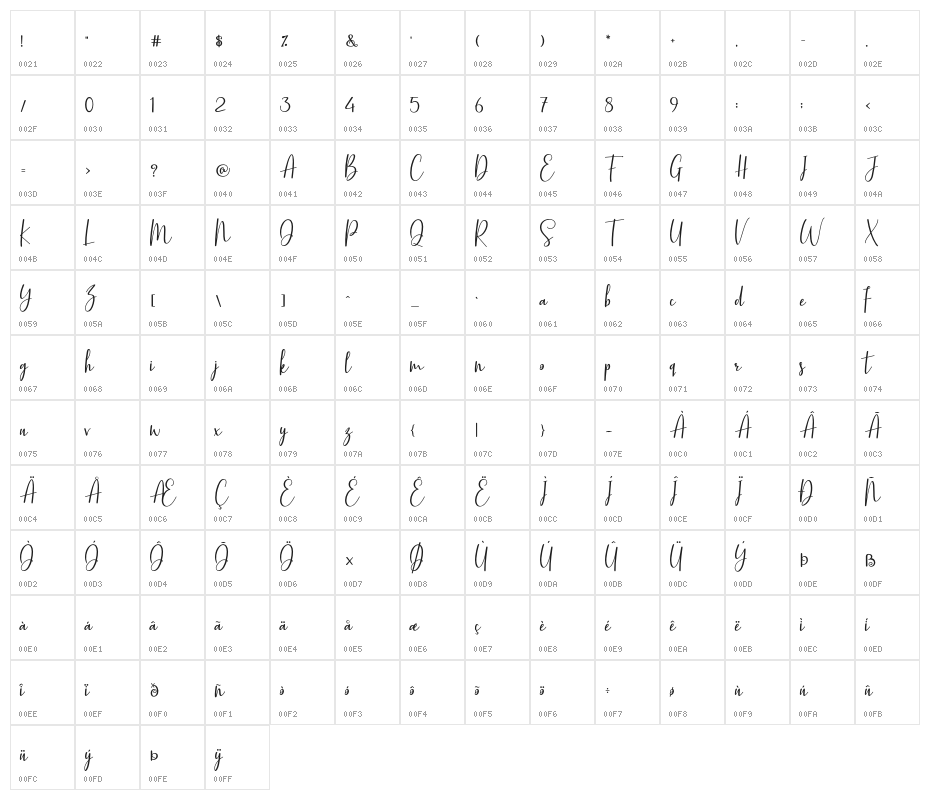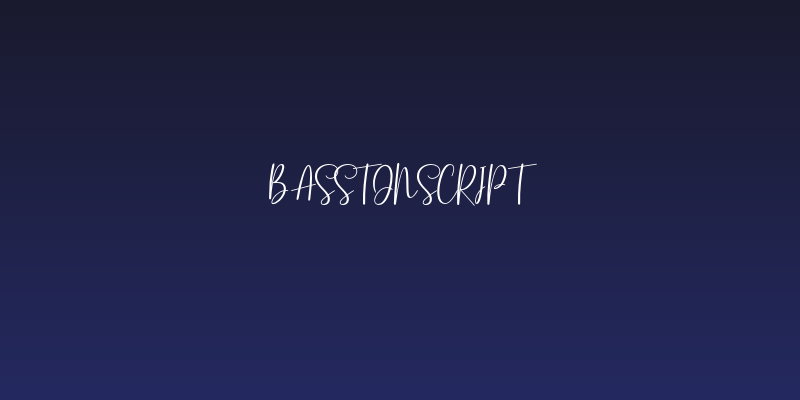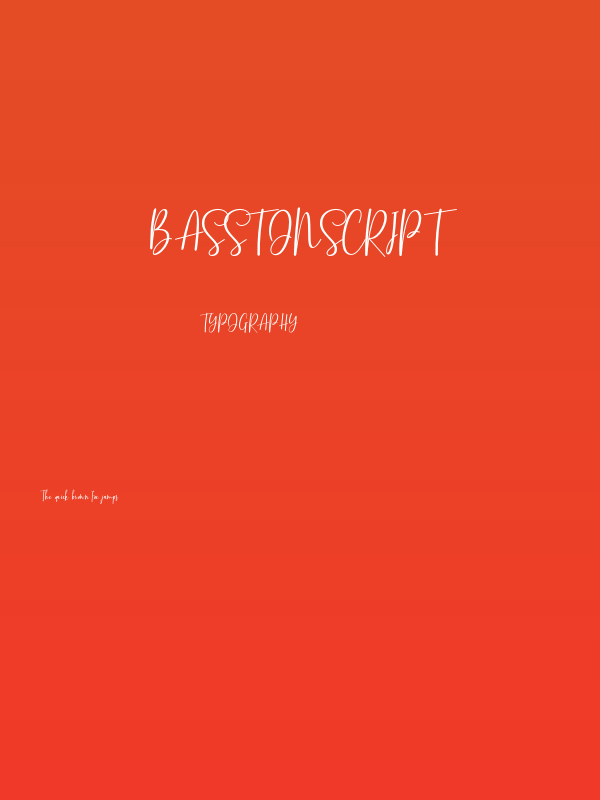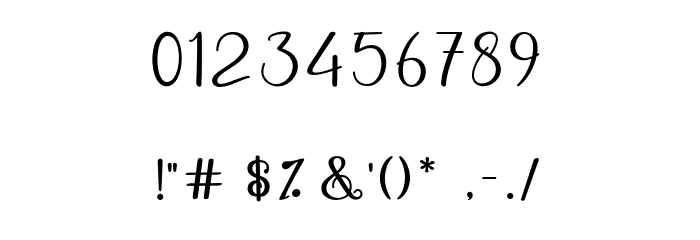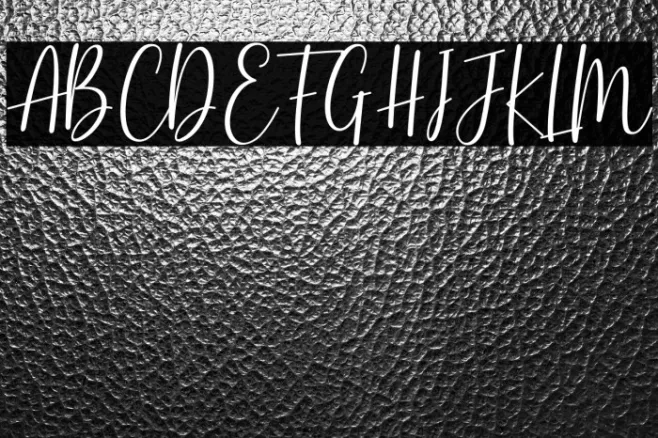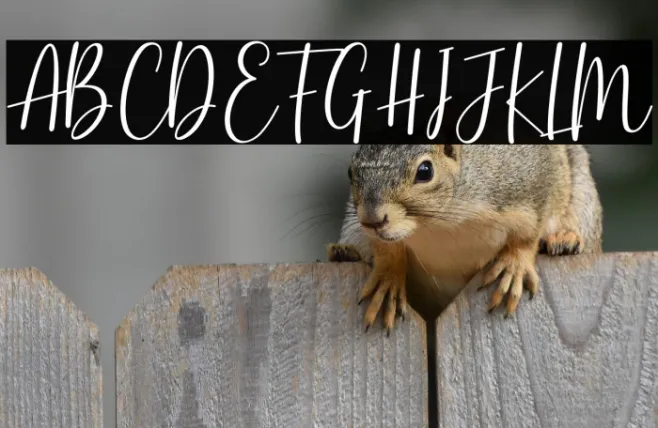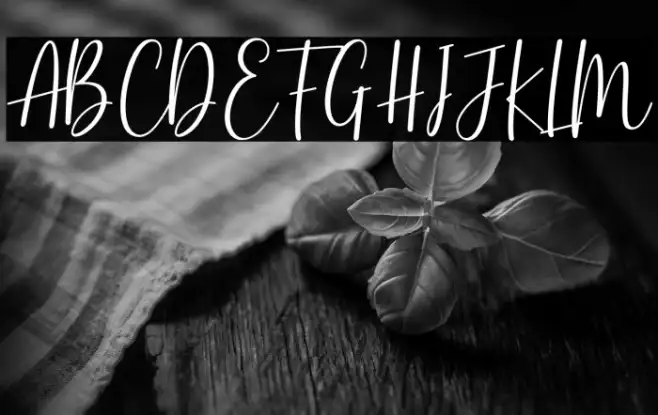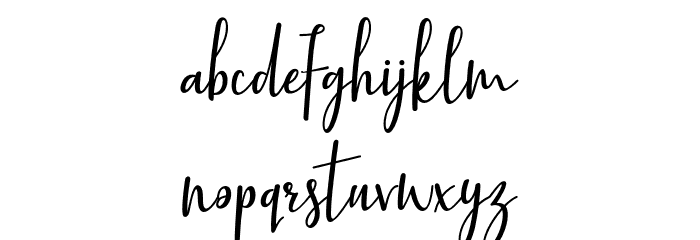
BasstonScript Font
BasstonScript Description
This font exudes a lively and elegant script style, characterized by its flowing, cursive letterforms. The uppercase letters are tall and slender, with graceful loops and swashes that add a touch of sophistication. The lowercase letters maintain a consistent rhythm, with smooth connections that enhance readability while preserving the font's decorative nature. The numerals are designed to complement the letters, featuring similar curves and strokes. Special characters are thoughtfully integrated, maintaining the overall aesthetic. This font is perfect for projects that require a personal, handwritten touch, such as invitations, greeting cards, or branding materials.
| Proposed Projects | Ideal for invitations, greeting cards, branding, and personal projects. |